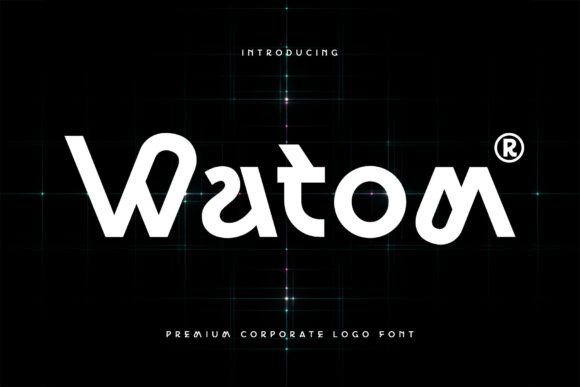
Watom: A Premium Display Font for Confident Brand Identities
It started with a blank Figma artboard and a client email that read: “We want to feel grounded, warm, and quietly confident — not trendy, not loud.” They ran a small ceramic studio: hand-thrown mugs, matte glazes, quiet packaging. No flashy slogans. Just integrity, craft, and presence. I opened my font library, scrolled past the usual suspects, and landed on Watom.
Right away, Watom felt different—not flashy, not quirky, not minimalist to the point of coldness. It’s a premium corporate logo font, yes—but what struck me first wasn’t its authority, it was its calm precision. The geometry is clean but never mechanical; the proportions are confident without being aggressive. Each letterform has subtle tension—tight apertures, balanced counters, vertical stress that leans just enough into modernity without losing timelessness. It’s the kind of display font that doesn’t shout “look at me,” but makes people pause and say, “That feels right.”
I dropped Watom into the logo mockup—just the studio’s initials stacked cleanly. No effects. No tracking adjustments yet. Instantly, the composition settled. The weight distribution across characters felt intentional, like each letter had been considered in relation to the next. That’s Watom’s strength: it works as a unit. As a logo font, it doesn’t rely on ornamentation or contrast tricks. Its power is in consistency—clean lines, even rhythm, and a sense of quiet command.
We tested it across real touchpoints. On a kraft paper product label? Crisp and legible at 12pt, with enough character to hold attention beside hand-drawn icons. On a matte-finish business card? The medium weight held up beautifully in offset print—no blurring, no loss of definition. In the hero section of their simple WordPress site? Paired with a light, airy serif (we chose a neutral text serif with open letterforms), Watom became the anchor—authoritative but never overwhelming. It didn’t compete with photography; it complemented it.
Here’s what surprised me: Watom shines most where brevity matters. As a display font, it’s not built for paragraphs—it’s made for impact. Logo. Shop sign. Instagram highlight cover. Product tagline. That’s its natural habitat. And because it’s designed with confident proportions, it scales gracefully—from tiny enamel pin engraving to a 48” wall mural in their studio space. No distortion. No awkward gaps. Just clarity, even at extremes.
For pairing, I kept it purposeful. Watom’s geometry pairs effortlessly with humanist sans serifs for body copy—think a friendly, slightly rounded sans for website text or packaging descriptions. With serifs, it prefers ones that share its warmth: low-contrast, slightly open, with soft terminals. Avoid ultra-thin or overly decorative scripts—they clash with Watom’s grounded tone. A delicate handwritten font might work *sparingly*, like for a signature line on a thank-you card—but never as a primary partner. Watom leads; everything else supports.
The included styles gave us flexibility without overcomplicating things. Watom comes with multiple weights—Light, Regular, Medium, Bold—and true italics (not slanted), which mattered when setting subtle captions on product cards. We used the Medium weight for the logo, Regular for secondary signage, and Light for fine-print details on labels. No need for faux bolding or stretching. Everything felt native, intentional.
Ligatures and alternates? Subtle, but useful. The ‘f-l’ and ‘f-i’ ligatures cleaned up tight spacing in short phrases (“fine clay”, “form + light”). A few stylistic alternates offered gentle variation—like a slightly taller ‘t’ for visual balance in all-caps lockups. Nothing showy. Just thoughtful design infrastructure you notice only when it’s missing.
Testing before committing was key. I exported three versions of the logo: one in Watom, one in a well-known geometric sans, and one in a popular editorial serif. Then I printed them at actual size—on the same kraft paper stock, same ink, same lighting. Watom stood out not for novelty, but for cohesion. It looked like it belonged—to the space, the objects, the ethos. That’s rare. Most display fonts either dominate or disappear. Watom occupies the middle ground with intention.
What about multilingual needs? Watom includes extended Latin support—covering Western and Central European languages comfortably. If your project involves French accents, Polish diacritics, or Turkish dotted i’s, it handles them cleanly. No awkward collisions or clipped marks. For global-facing brands, that’s not a bonus—it’s baseline professionalism.